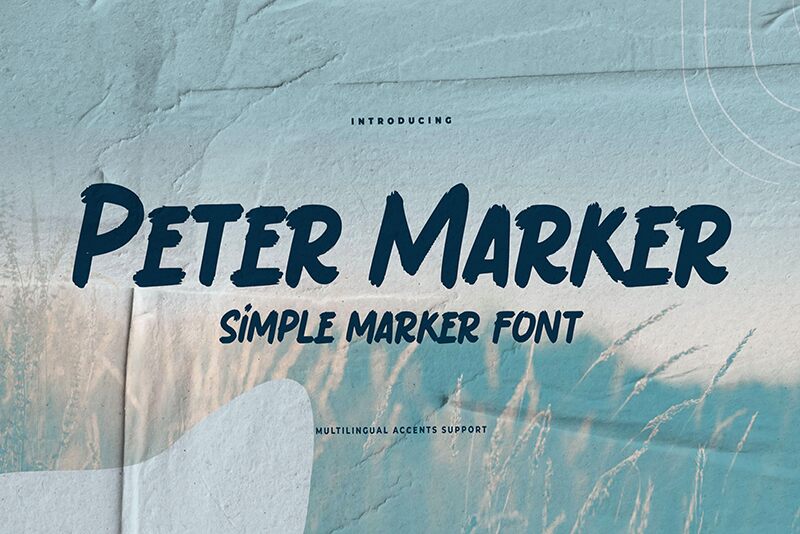
Peter Marker
Peter Marker is a dynamic, brush-style font crafted by the talented designer Gassstype. Exuding a captivating blend of raw energy and organic fluidity, this font effortlessly commands attention with its bold, expressive strokes. The distinct, marker-like aesthetic evokes a sense of spontaneity and artistry, making it a versatile choice for a wide range of design applications.
With its striking presence and emotive character, Peter Marker shines in headlines, titles, and attention-grabbing text elements. Its unique flair lends itself seamlessly to branding, packaging, and editorial design, infusing projects with a bold, handcrafted aesthetic. Whether used for eye-catching logos, impactful event posters, or dynamic social media content, Peter Marker by Gassstype offers designers a captivating typographic solution that elevates the visual experience.